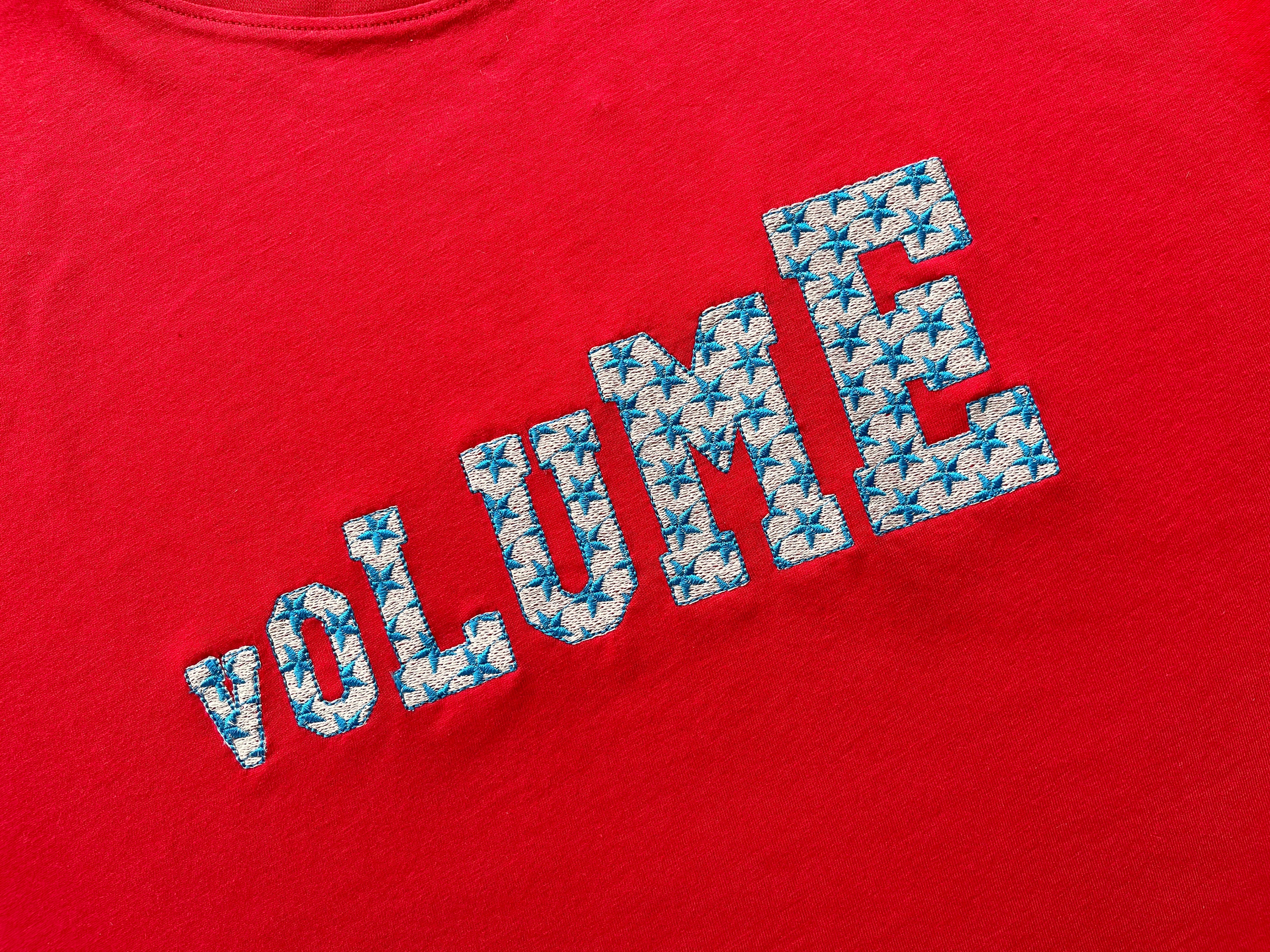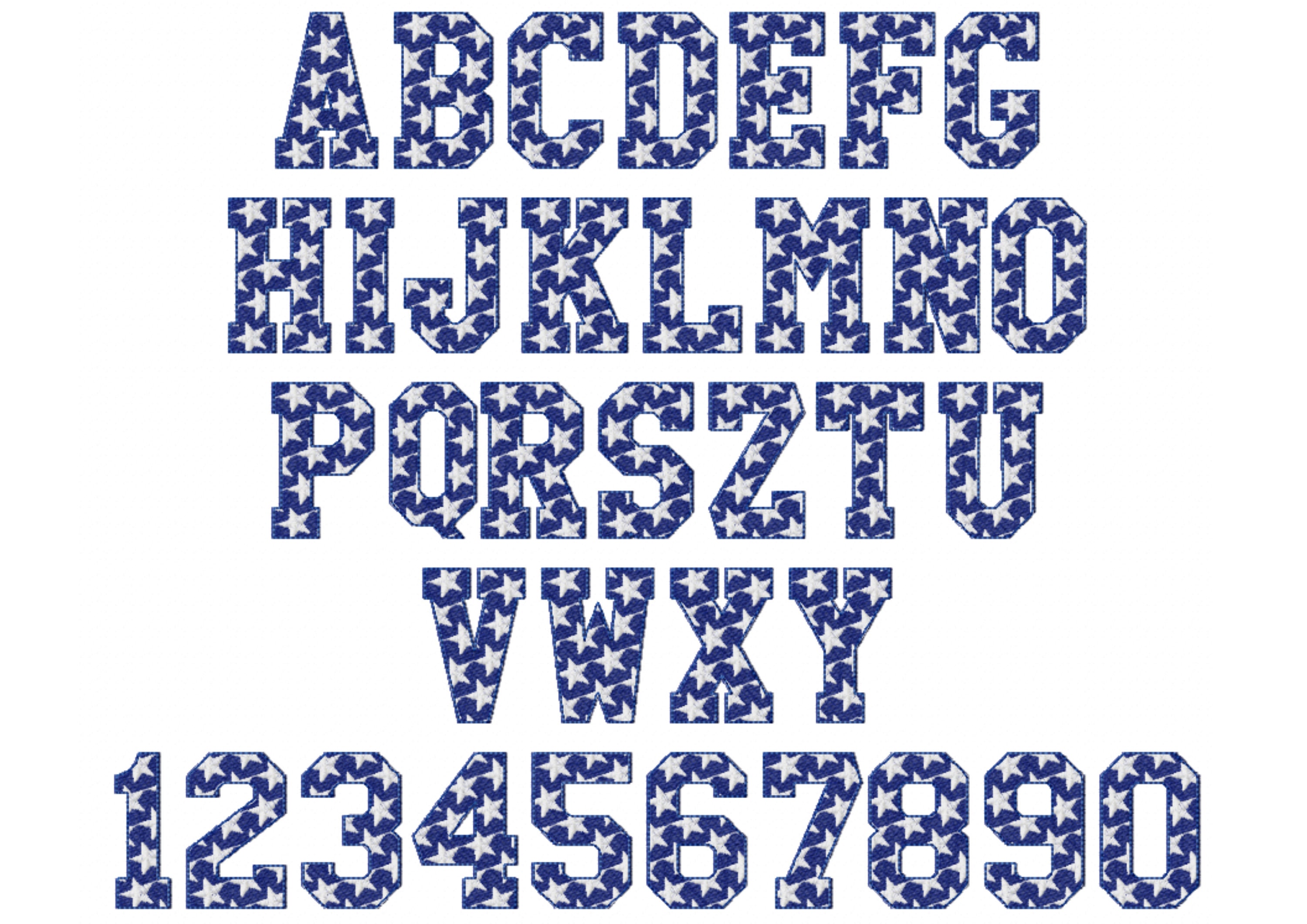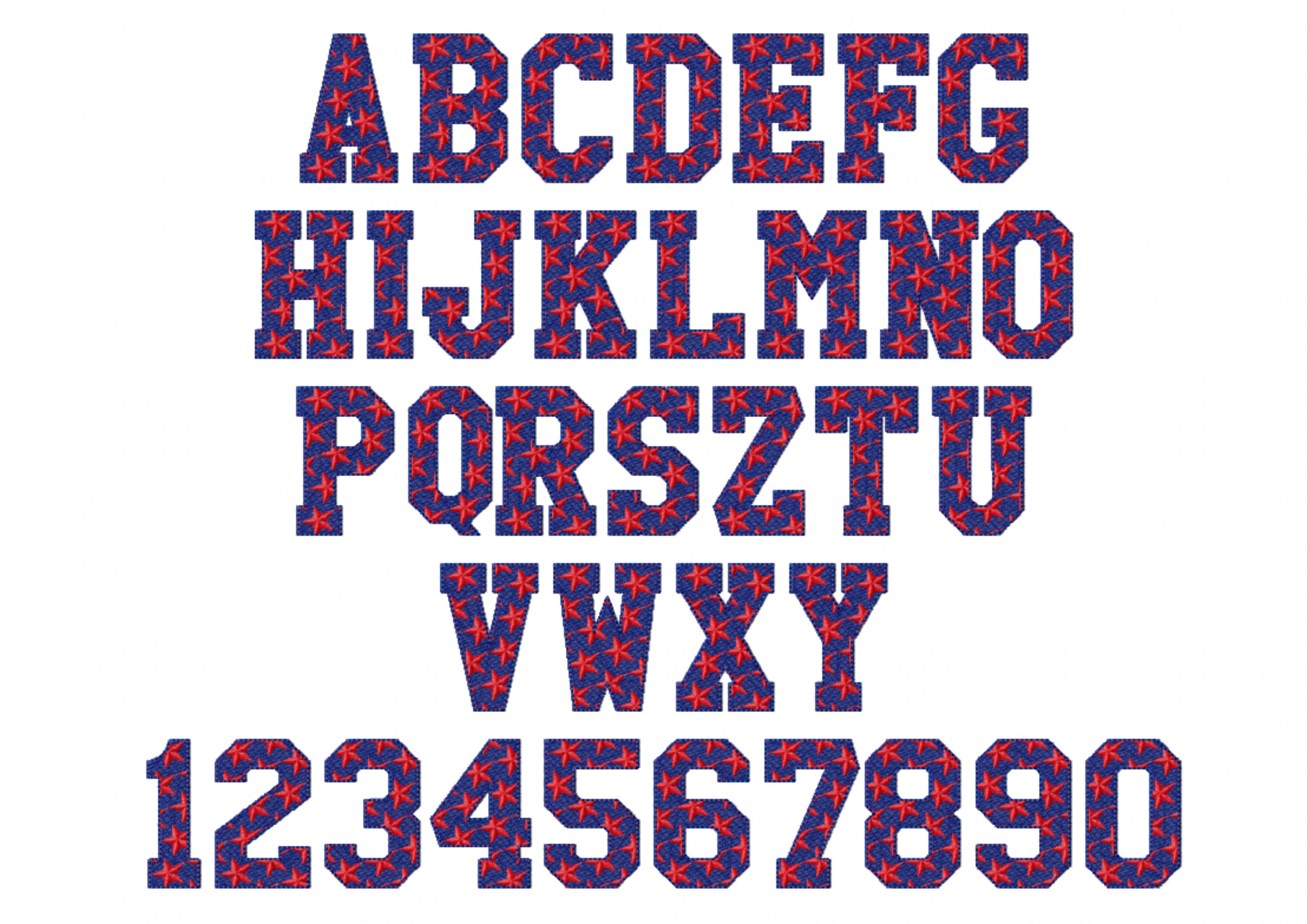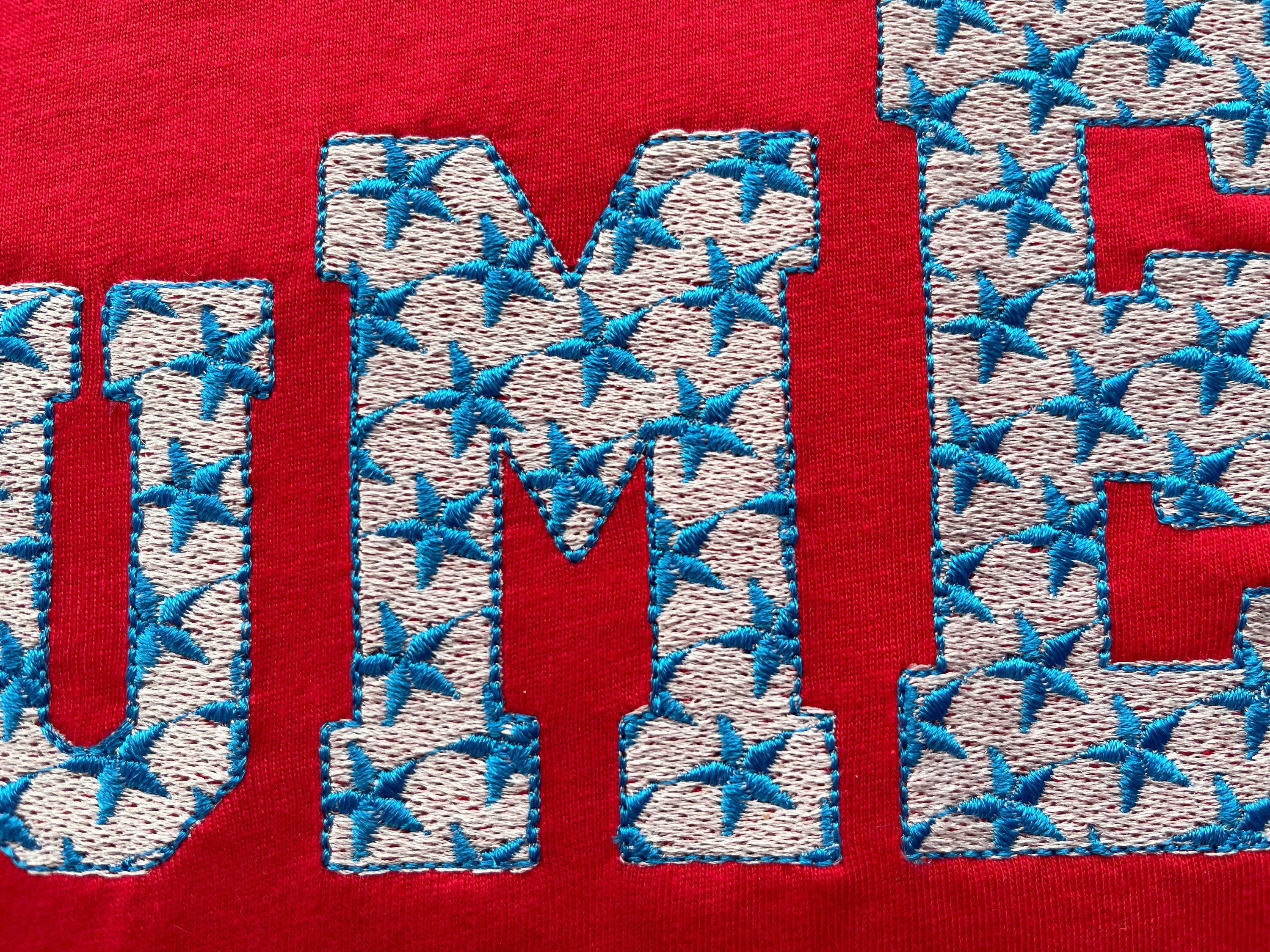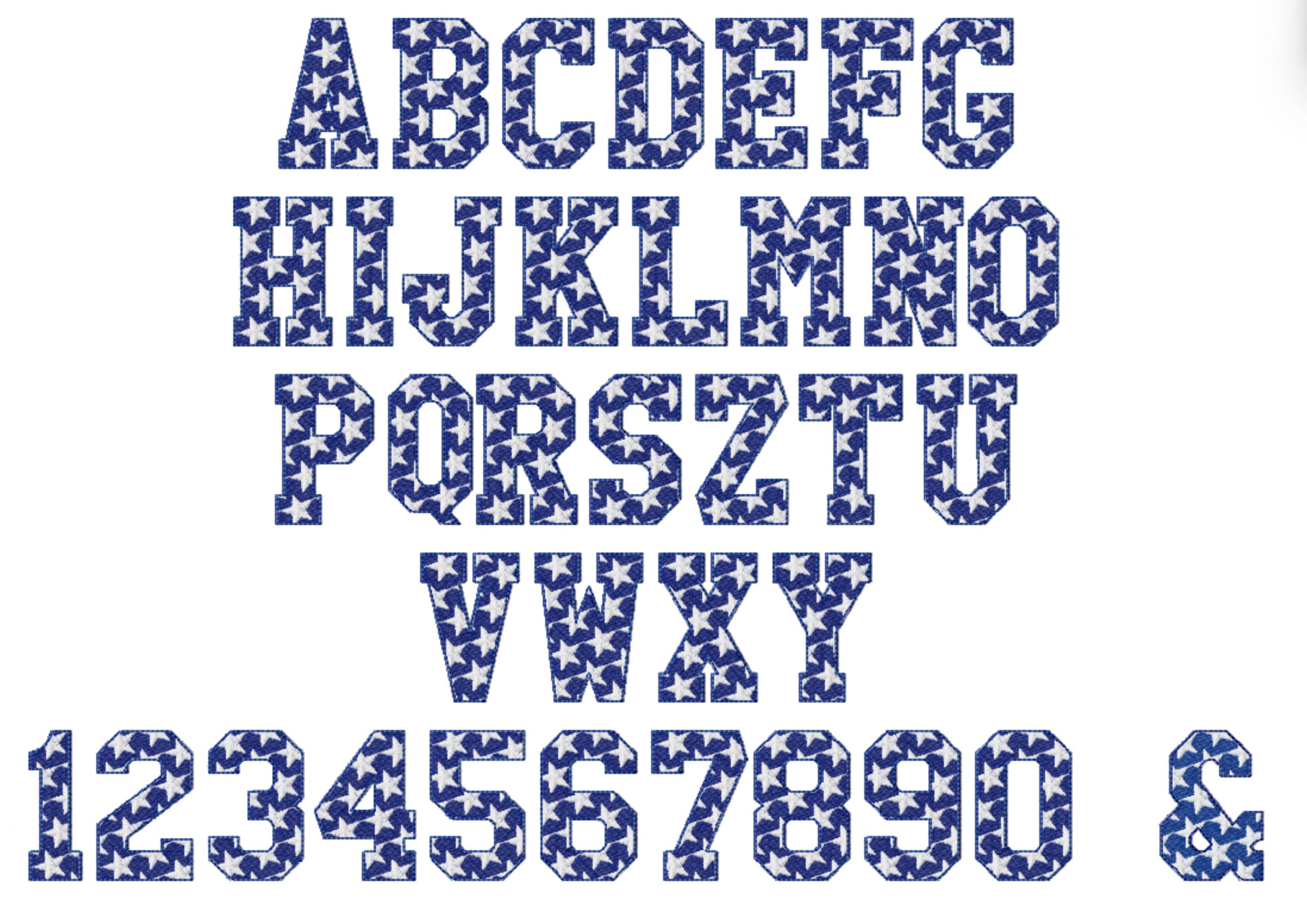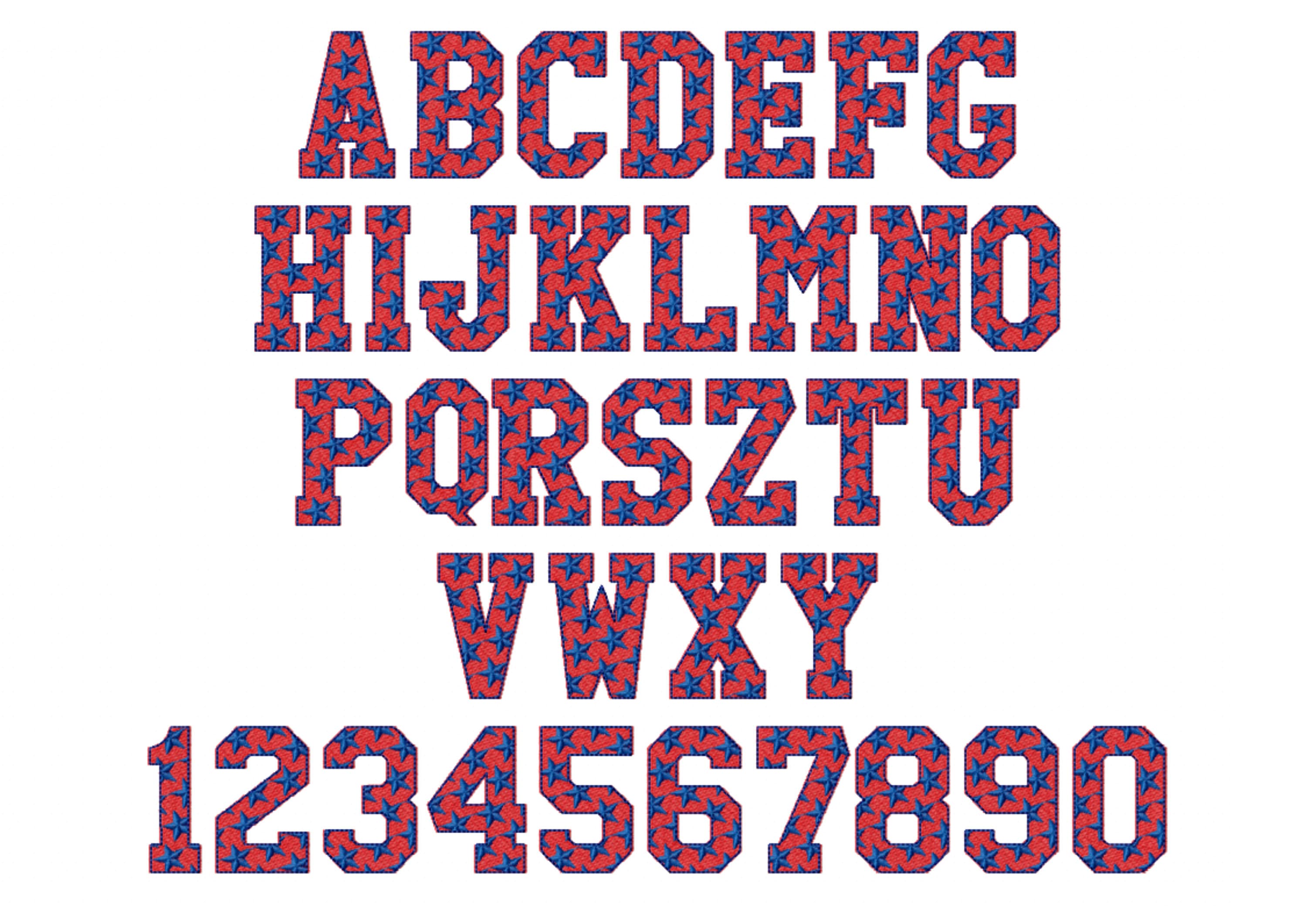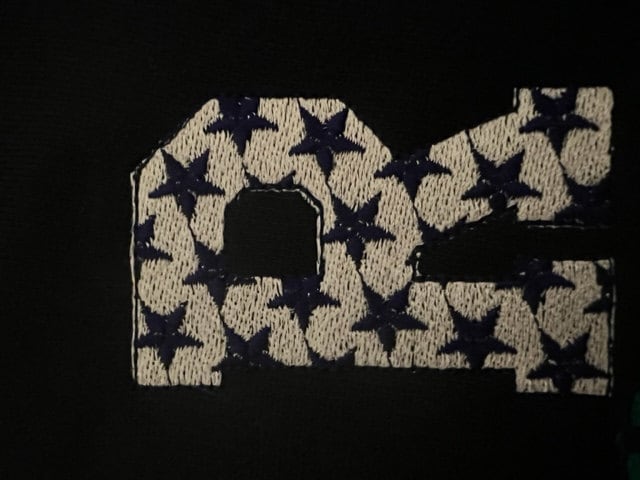
Stars Font machine embroidery design starry embroidery alphabet star embroidery font varsity best embroidery kids independence monogram
Fill stitch design